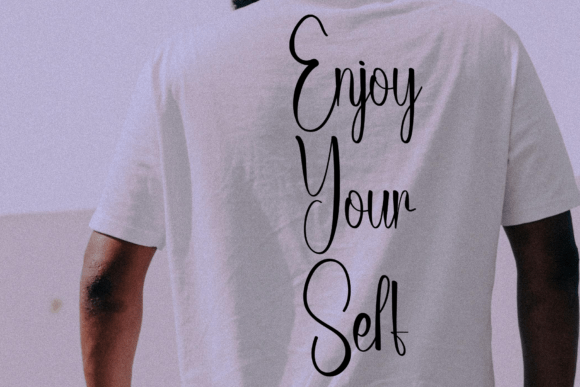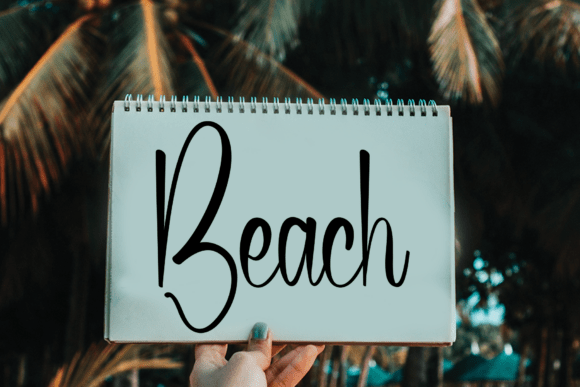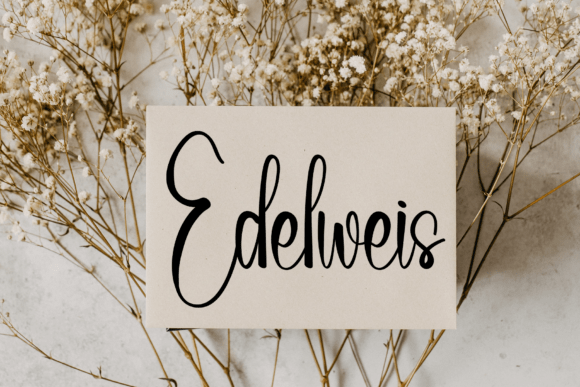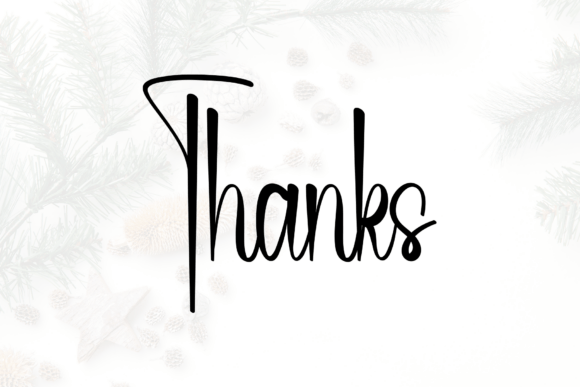
Discover the Charm of Amstrong Font: A Sweet and Beautiful Handwritten Font
Are you looking for a font that adds a touch of warmth and personality to your design projects? Look no further than Amstrong Font, a sweet and beautiful handwritten font that is sure to capture your heart. Featuring characters that dance along the baseline, Amstrong Font is the perfect choice for designers and crafters who want to add a cozy accent to their work.
What Makes Amstrong Font So Special?
Amstrong Font is a unique and charming handwritten font that is designed to bring a sense of joy and playfulness to your designs. Its distinctive characters are carefully crafted to dance along the baseline, creating a sense of movement and energy that is sure to capture the attention of your audience.
Whether you’re working on a branding project, a website design, or a craft project, Amstrong Font is the perfect choice. Its sweet and beautiful appearance makes it ideal for a wide range of applications, from invitations and greeting cards to packaging and advertising.
Key Features of Amstrong Font
• Handwritten appearance: Amstrong Font features a beautiful handwritten appearance that is sure to add a personal touch to your designs.
• Dancing characters: The characters in Amstrong Font are designed to dance along the baseline, creating a sense of movement and energy.
• Cozy accent: Amstrong Font is perfect for adding a cozy accent to your designs, making it ideal for projects that require a warm and inviting feel.
• Versatile: Amstrong Font is suitable for a wide range of applications, from digital designs to print projects.
How to Use Amstrong Font in Your Design Projects
Using Amstrong Font in your design projects is easy. Here are a few tips to get you started:
• Pair with other fonts: Amstrong Font pairs well with other fonts, making it easy to create a unique and visually appealing design.
• Experiment with colors: Amstrong Font looks great in a variety of colors, so don’t be afraid to experiment and find the perfect color scheme for your project.
• Use for headings and titles: Amstrong Font is perfect for headings and titles, making it a great choice for adding a touch of personality to your designs.
Why Designers and Crafters Love Amstrong Font
Designers and crafters love Amstrong Font for its unique and charming appearance. Here are a few reasons why:
• Easy to read: Despite its handwritten appearance, Amstrong Font is easy to read, making it perfect for body text and other applications where readability is important.
• Unique and distinctive: Amstrong Font is a unique and distinctive font that is sure to set your designs apart from the crowd.
• Supports multiple languages: Amstrong Font supports multiple languages, making it a great choice for designers and crafters who work with international clients.
In conclusion, Amstrong Font is a sweet and beautiful handwritten font that is perfect for designers and crafters who want to add a touch of warmth and personality to their designs. Its unique and charming appearance, combined with its versatility and ease of use, make it a great choice for a wide range of applications. So why not give Amstrong Font a try and see how it can elevate your design projects?
Whether you’re working on a branding project, a website design, or a craft project, Amstrong Font is sure to be a great addition to your design toolkit. Its dancing characters and cozy accent make it the perfect choice for adding a personal touch to your designs, and its ease of use and versatility make it easy to incorporate into your workflow.